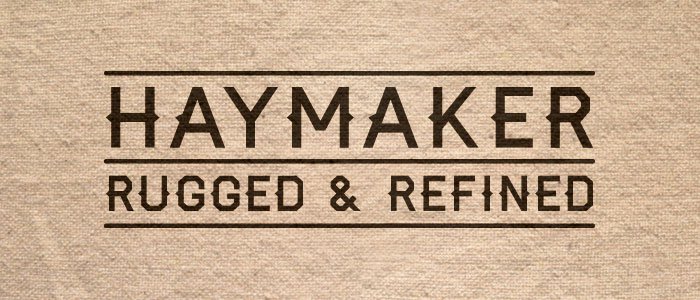
Haymaker Font
Haymaker Font is known for its text generator function. This typeface is also known as the pixel lab typeface. To start with, blending beauty and clarity makes this font’s design is superb for books, magazines, and net pages. The font is relevant for massive signs and symptoms and signs and symptoms, labels, titles, headlines.
Any photograph layout at the net, in movement pix, or print – from t-shirts to posters and is an elegant font for trademarks. It’s a long way a splendid font for newspapers. noir pro font is cool typography created as a contemporary and wide form of characters that cowl simple Latin, fundamental Latin diacritics, and Cyrillic. Usage Its ink traps make sure easy operation even on low-exceptional papers.
As a result, its proportions are searching to benefit the area in height and width, therefore making high-quality conventional corporation fonts. It’s miles one of the outstanding design fonts for titles, headlines, and posters. Due to the fact, its proportions have the purpose of gaining area in height and width. Also called customs font.
Another sild handwritten font is the latest show font circle of relatives. It became created as a personal assignment inspired by using the use of the excellent layout. The font is also very applicable for logo designs, Brochure designs, Posters, and flyers as well. The style of its characters is very unique therefore it is advantageous for any display or screen design project.